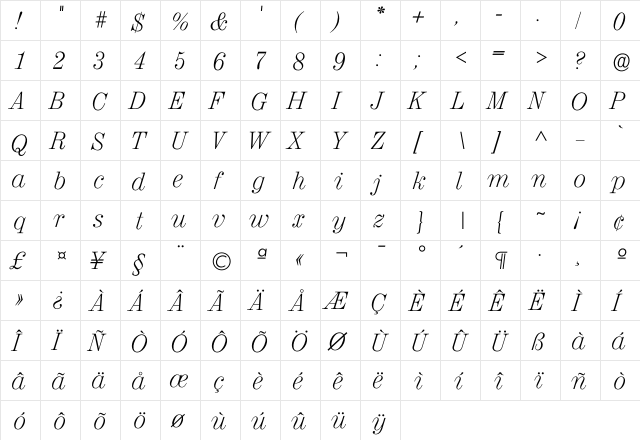
Ivalencia Xlight
Design Context for Ivalencia Typeface
Ivalencia offers clean, dependable letterforms without strong stylistic allegiance, making it a practical choice for designers who need flexibility. The delicate stroke weight brings airiness and refinement to layouts.